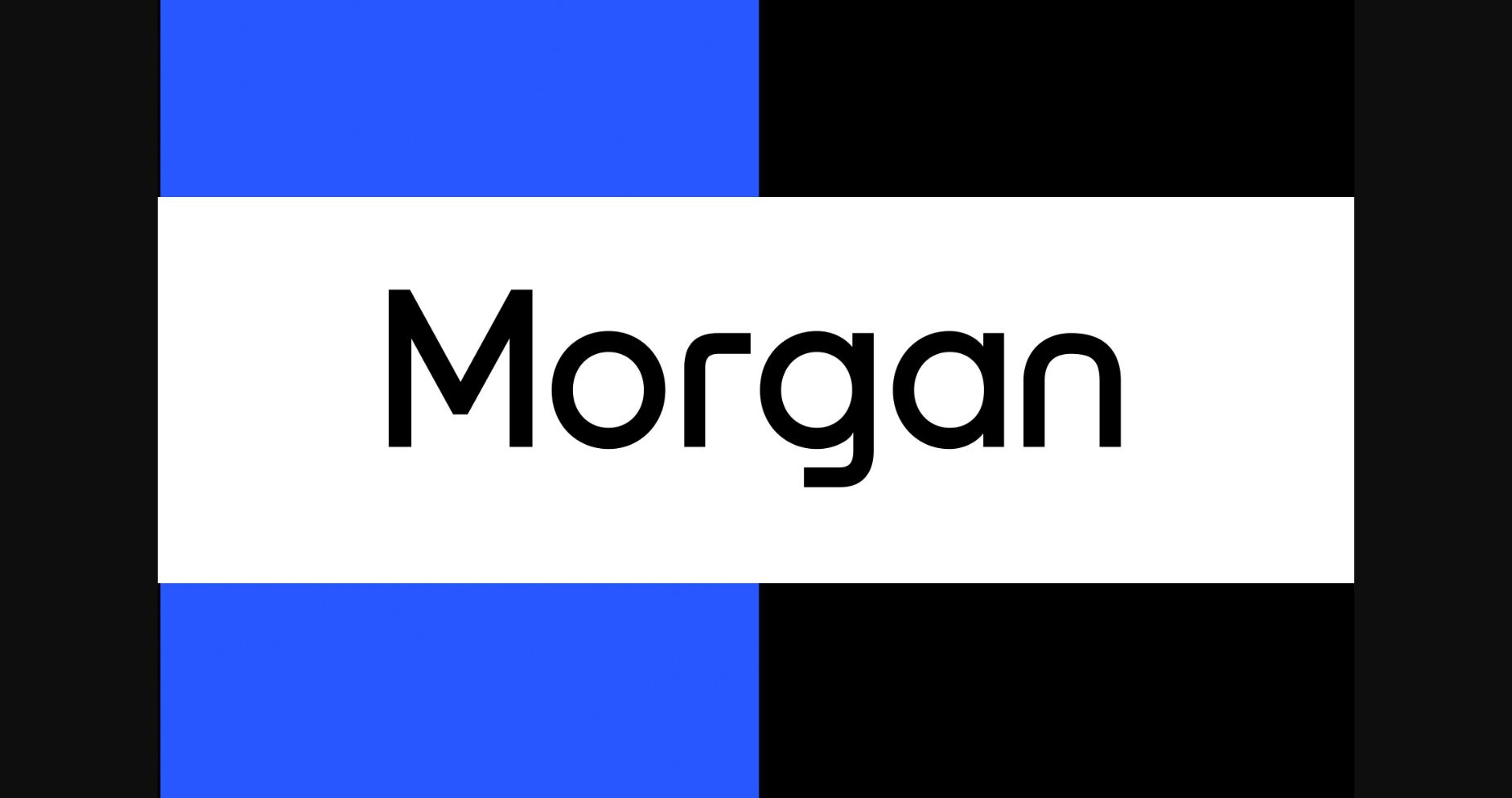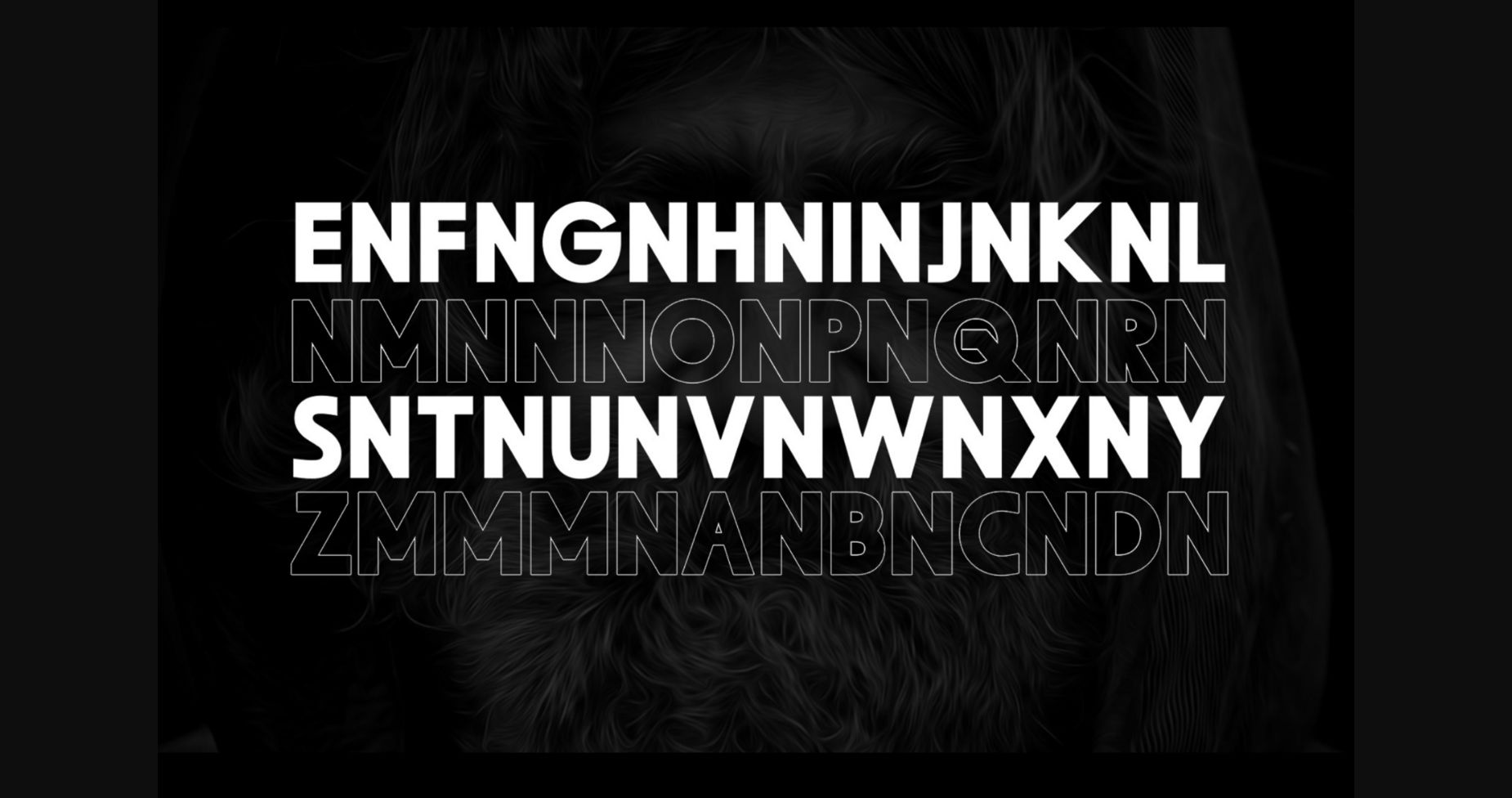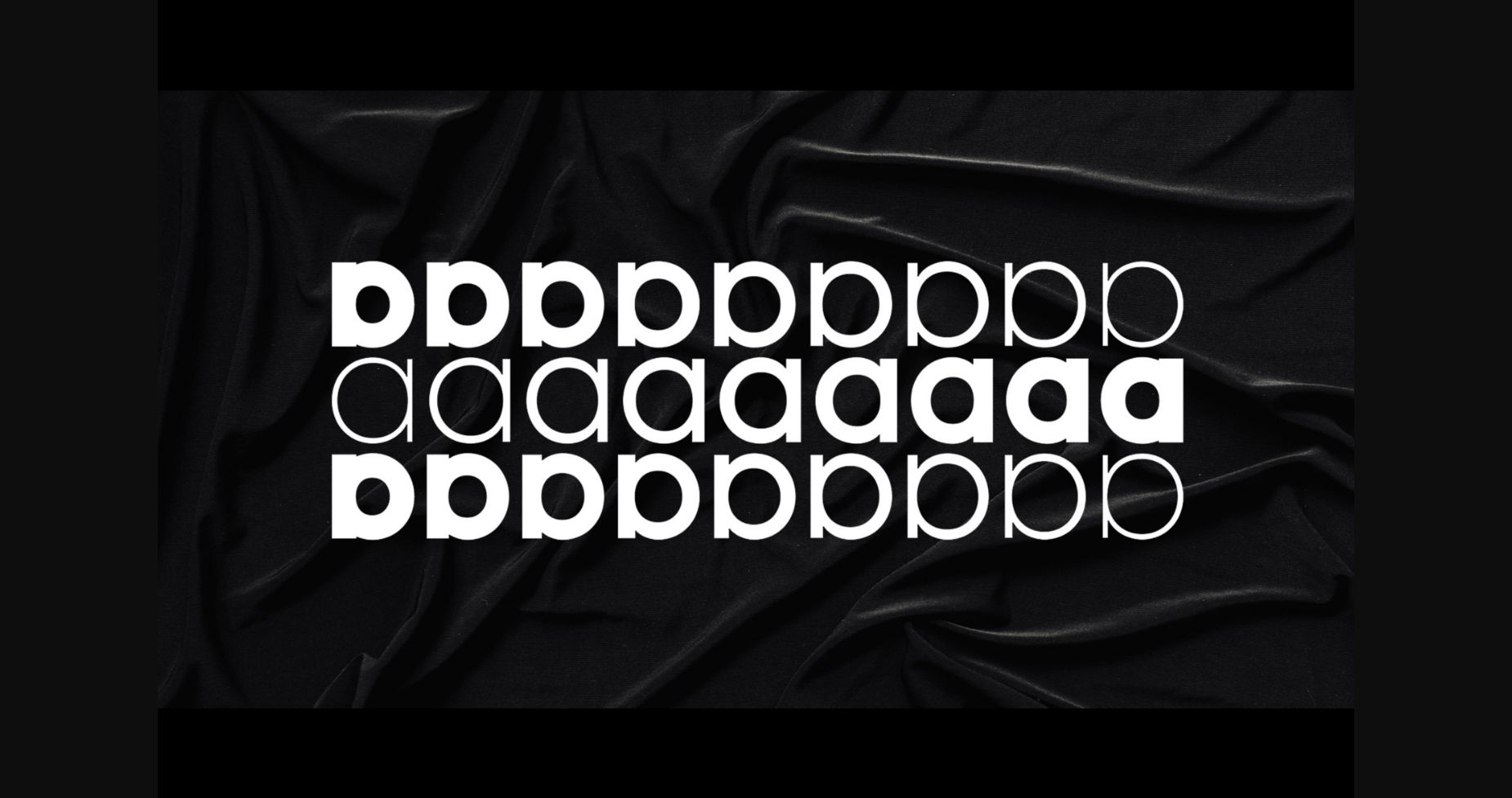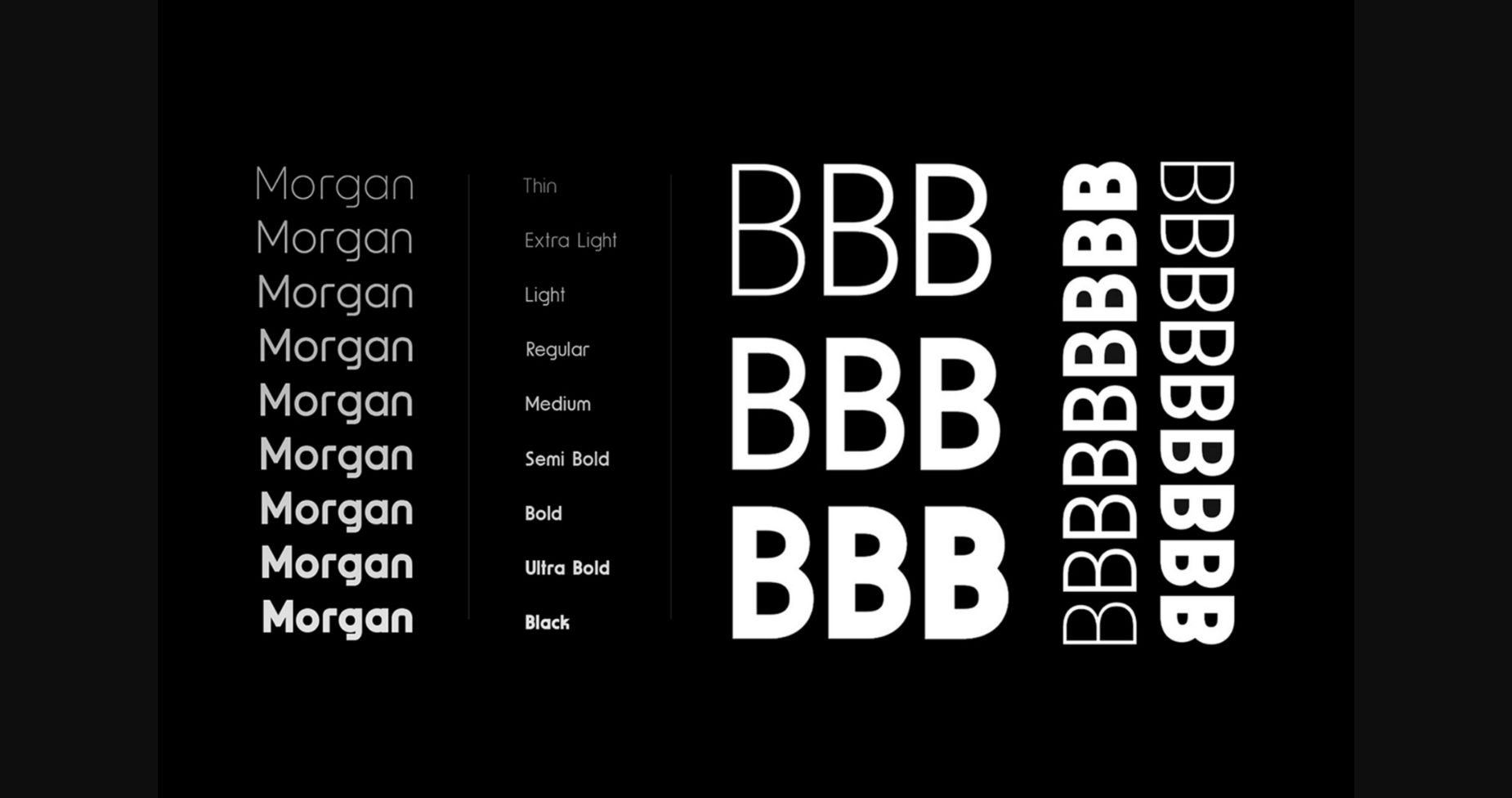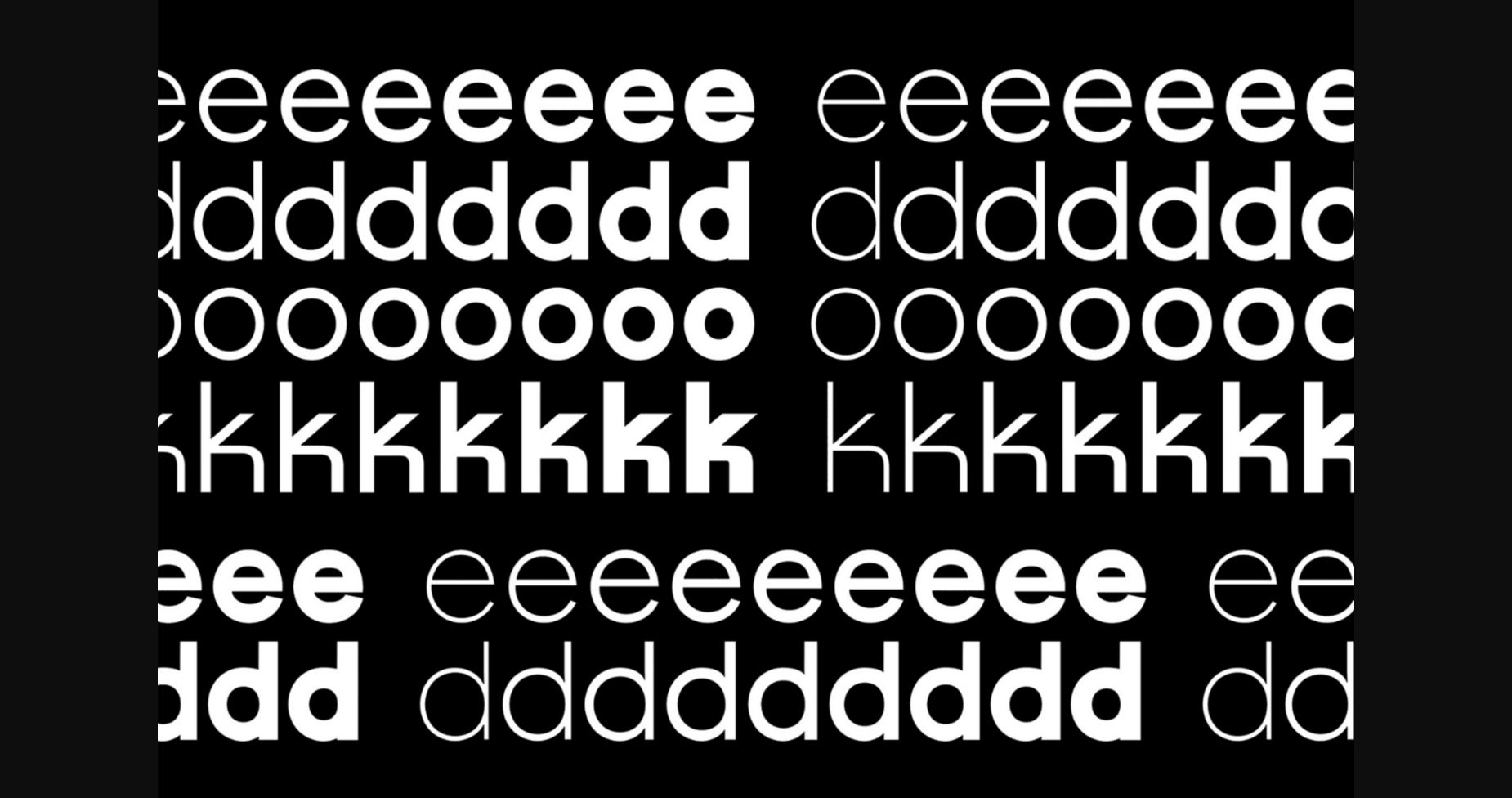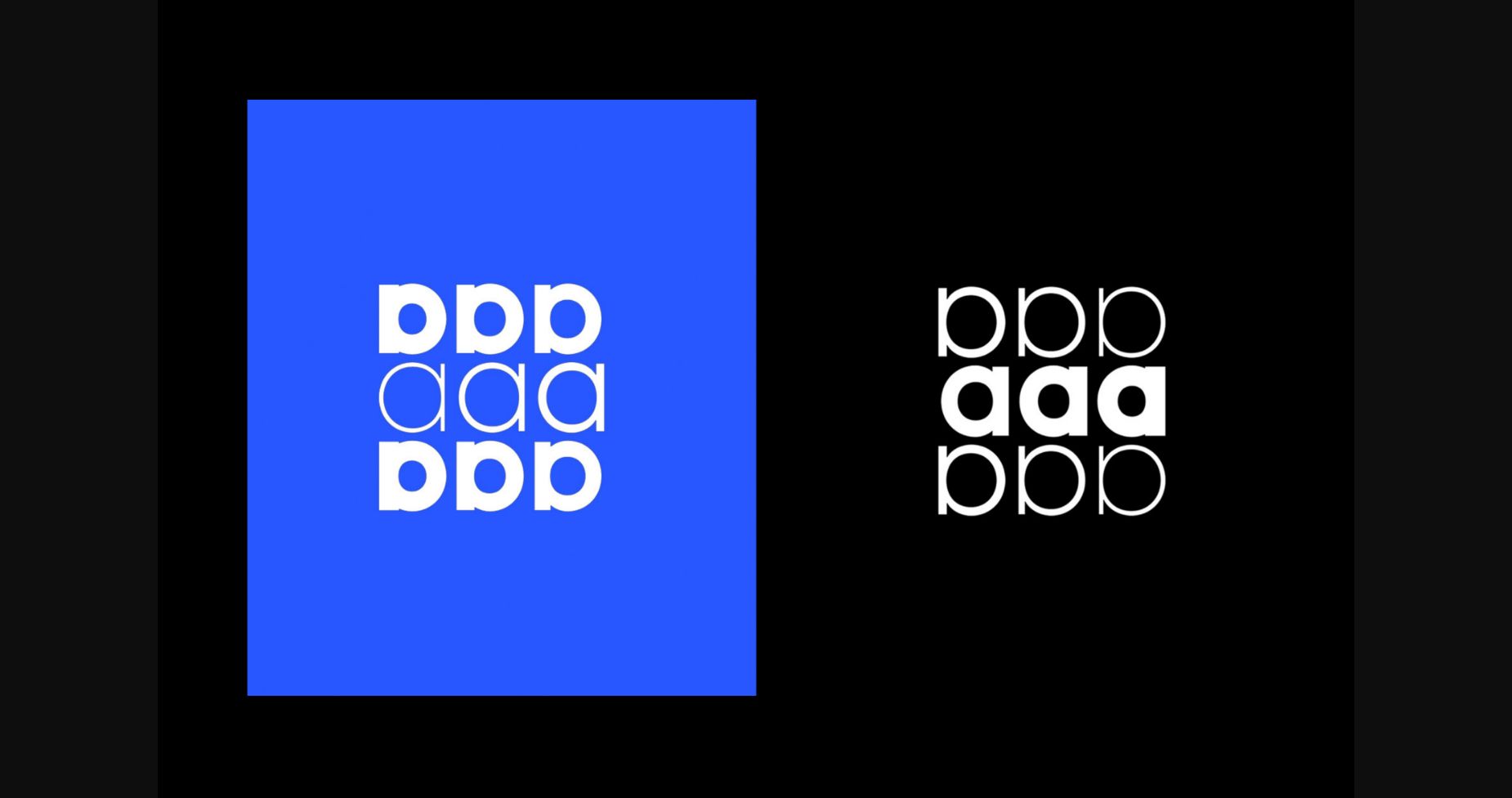
HomeSans Serif FontsMorgan Font Sans Serif Fonts Morgan Font FacebookXPinterestWhatsApp 1 of 8 ... Morgan Font Poster 2... Morgan Font Poster 3... Morgan Font Poster 4... Morgan Font Poster 5... Morgan Font Poster 6... Morgan Font Poster 7... Morgan Font Poster 8... About Morgan Font Morgan is a modern and elegant typeface. Whether you’re using it for crafts, digital design, presentations, or making greeting cards, this font has the potential to become your favorite go-to font, no matter the occasion! DOWNLOAD NOW People also explored Santa Claus Font Roullette Font Catalina Vanessa Font Explore Magic Font Honest Mistake Font Shirena Beauty Font Ranshell Font Lemonelho Font Stockholder Font 310 0 TagsMorganMorgan Font Previous articleGaraetteok FontNext articleRearden Font LEAVE A REPLY Cancel reply Comment: Please enter your comment! Name:* Please enter your name here Email:* You have entered an incorrect email address! Please enter your email address here Website: Save my name, email, and website in this browser for the next time I comment. Personal Use Free Zalitta Personal Use Free Read more about this font Vinograd Personal Use Free Read more about this font White Rose Personal Use Free Read more about this font Engine Personal Use Free Read more about this font BLOG How to Cut Any Font on Cricut: Convert a Font to SVG (Free) Turn any font into a clean SVG so it cuts crisp on Cricut - a quick 3-step workflow using a free font-to-SVG tool. Elegant Wedding Invitation Fonts – Handwritten & Script Fonts 5 Fonts That Will Dominate Design Trends in 2026 Best Fonts for T-Shirt Design – Top 2025 Picks